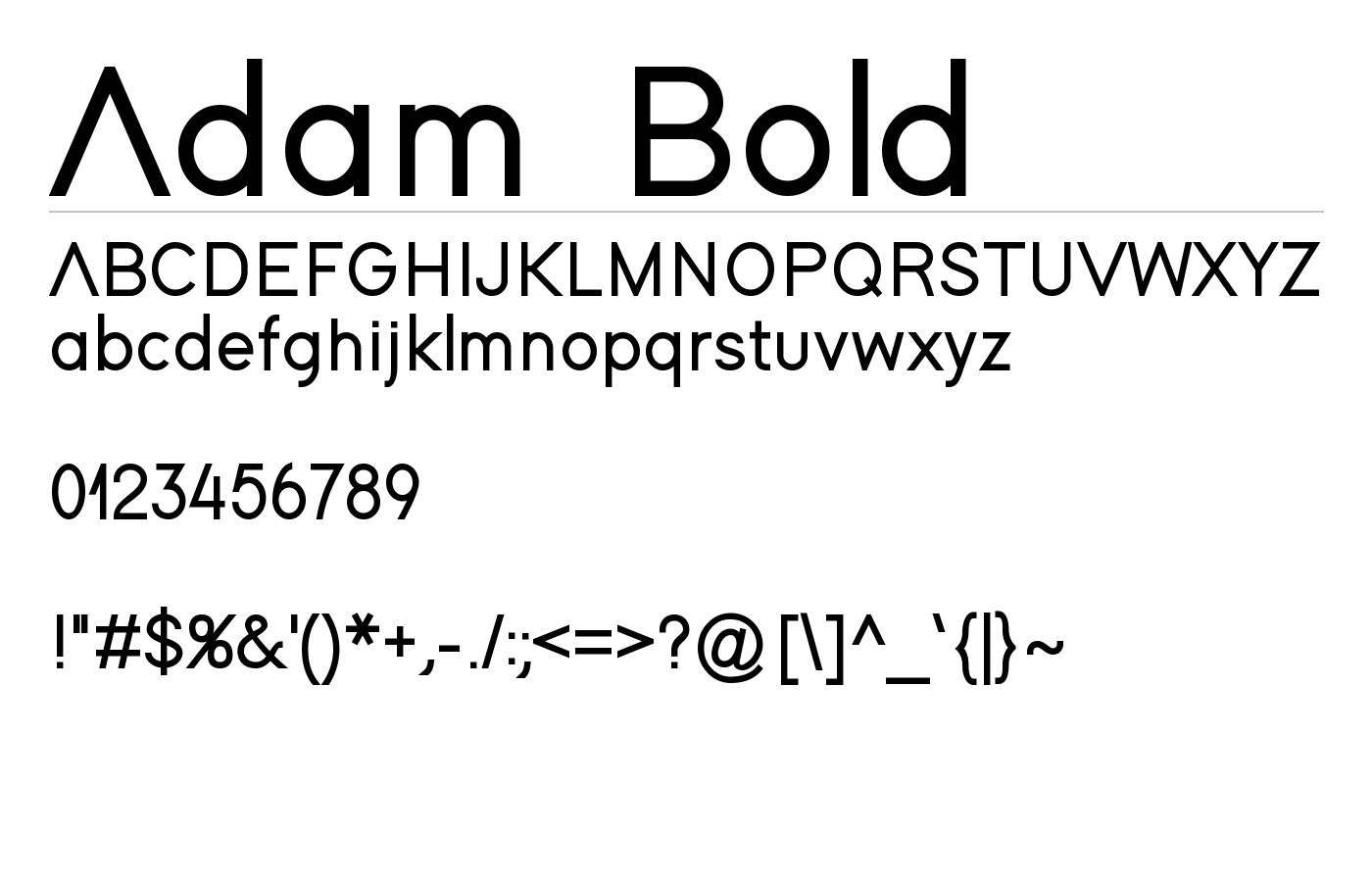
Adam Bold is a clean and modern sans serif font with a geometric and slightly condensed structure, featuring a medium to high x-height that enhances readability. Its smooth, uniform stroke weight and simple letterforms, including unique angled elements like the uppercase A, give it a contemporary yet approachable feel. This versatile font works well for headlines, branding, and editorial design, especially where clarity and a polished, stylish look are desired.
Adam Font